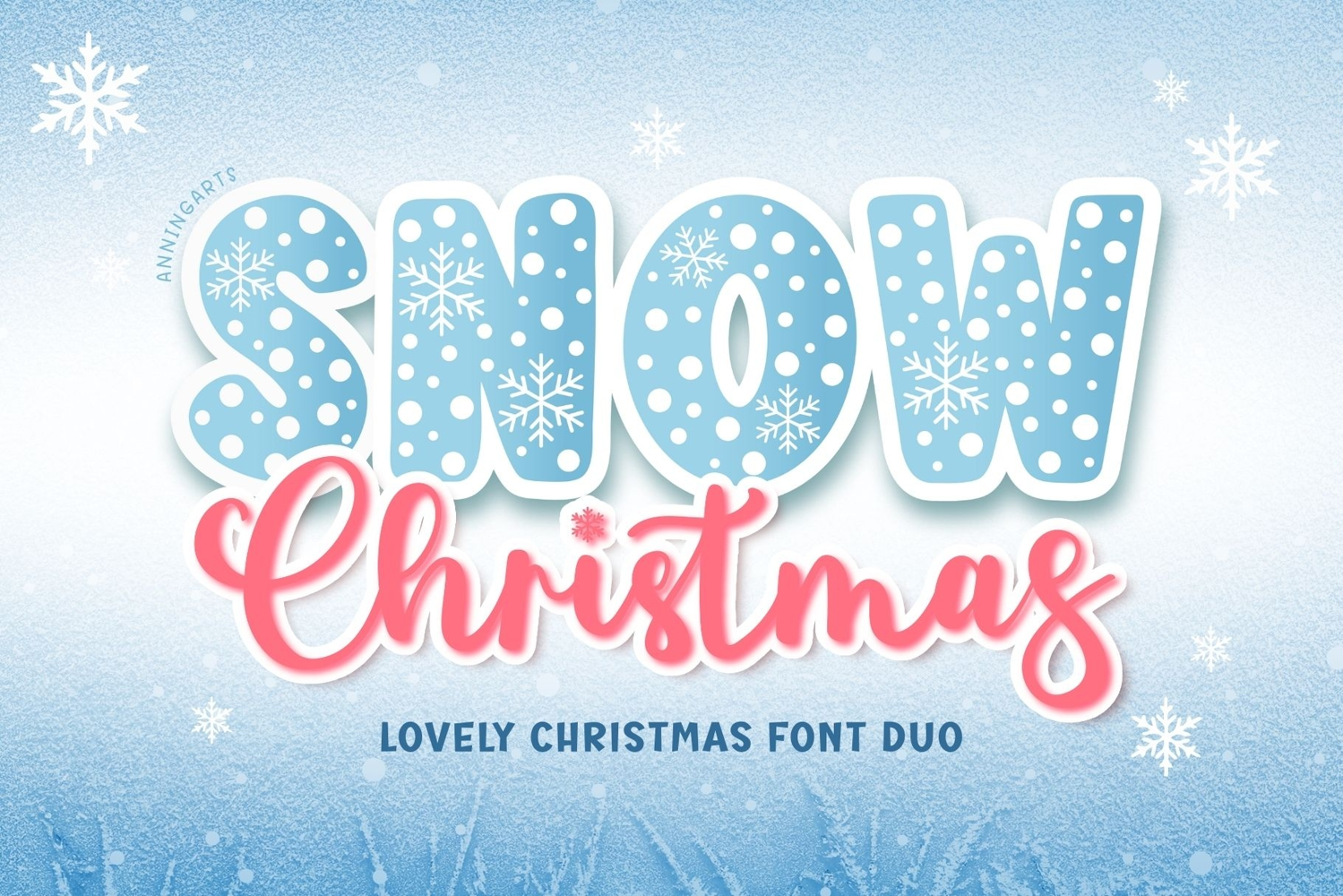
Snow Christmas Font Duo is a festive holiday font set that includes a playful snow-pattern display font and a soft handwritten script. Perfect for Christmas mockups, greeting cards, mugs, t-shirts, gift tags, prints, and winter branding.
The display font features cute snowflake and polka-dot details, while the script adds a warm handwritten feel for pairing headlines and messages perfectly together.